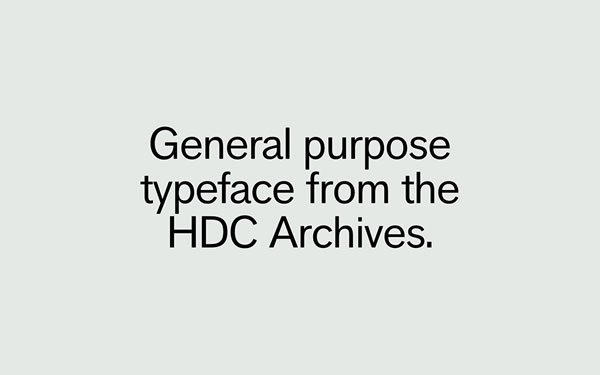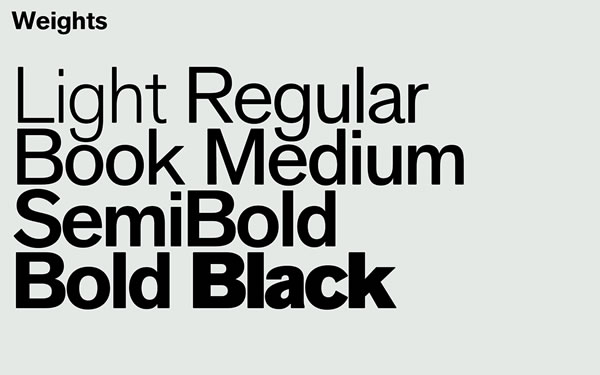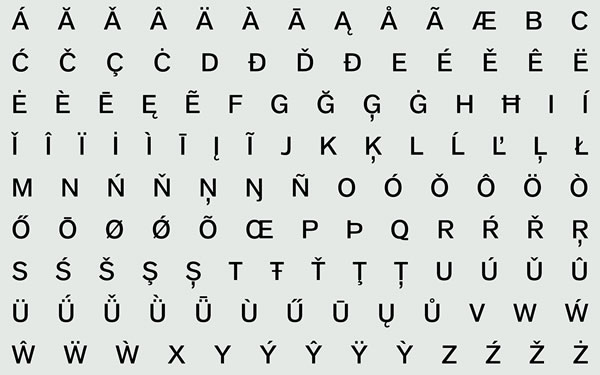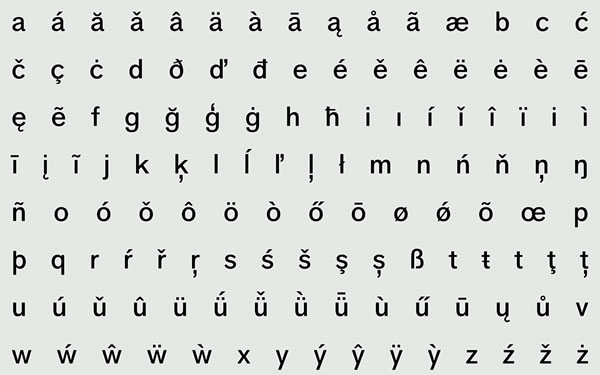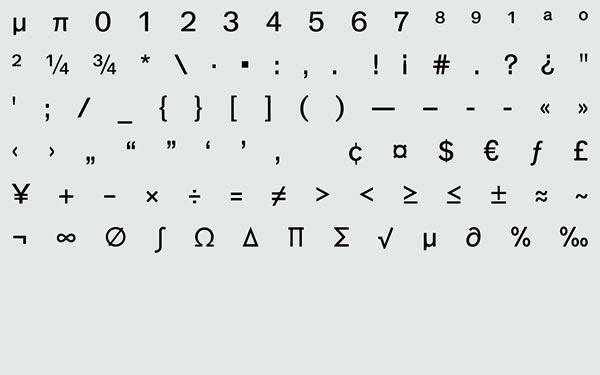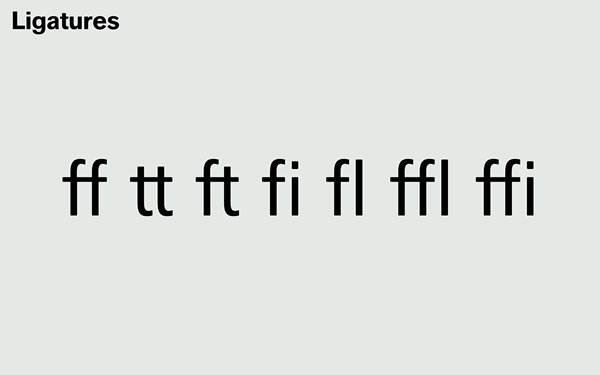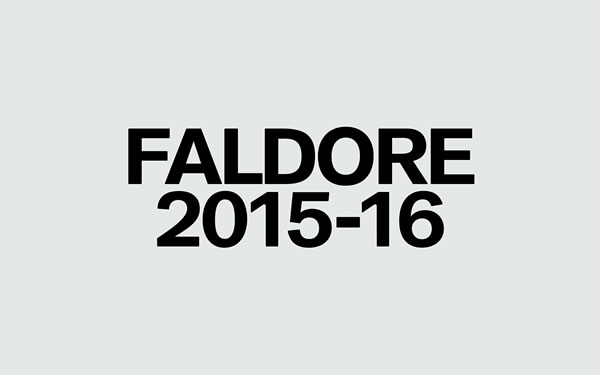
Faldore Font: A Simple yet Effective Sans Serif Typeface for Modern Design
In the world of typography, a well-designed font can make all the difference in communicating a message effectively. Faldore Font is a general-purpose upright sans serif typeface that has gained popularity among designers and crafters for its simplicity, legibility, and versatility. In this article, we’ll dive into the features and benefits of Faldore Font, exploring its design philosophy, characteristics, and uses.
The Design Philosophy of Faldore Font
Faldore Font is built on a monoline structure with a low contrast, which gives it a clean and minimalist look. The font’s design is centered around simplicity, with a focus on clear communication. The creators of Faldore aimed to develop a typeface that would be easy to read, both on screen and in print. To achieve this, they incorporated slightly rounded corners, which not only enhance the font’s geometric rendering on digital displays but also give it a warmer appearance in print.
Key Characteristics of Faldore Font
- Upright sans serif typeface: Faldore Font is a classic sans serif font with an upright posture, making it suitable for a wide range of applications.
- Low contrast monoline structure: The font’s monoline structure ensures a consistent line width, contributing to its clean and simple appearance.
- Slightly rounded corners: The subtle rounding of corners enhances the font’s readability on screen and adds a touch of warmth to its print appearance.
- Simple and legible design: Faldore Font is designed to communicate effectively, with a focus on clarity and simplicity.
Uses of Faldore Font
Faldore Font’s versatility makes it an excellent choice for various design projects, including:
- Digital interfaces: Faldore Font’s clean design and rounded corners make it an ideal choice for UI/UX design, web development, and mobile app design.
- Print materials: The font’s warm appearance and legibility make it suitable for print materials, such as brochures, posters, and business cards.
- Branding and advertising: Faldore Font’s simplicity and effectiveness make it a great choice for branding and advertising projects, where clear communication is crucial.
Benefits of Using Faldore Font
By choosing Faldore Font for your design projects, you can benefit from:
- Improved readability: Faldore Font’s simple design and rounded corners ensure excellent readability, both on screen and in print.
- Versatility: The font’s clean and minimalist design makes it suitable for a wide range of applications and industries.
- Effective communication: Faldore Font’s design philosophy is centered around clear communication, ensuring that your message is conveyed effectively.
Faldore Font is a well-designed sans serif typeface that offers a unique combination of simplicity, legibility, and versatility. Its low contrast monoline structure, slightly rounded corners, and clean design make it an excellent choice for designers and crafters looking for a reliable and effective font for their projects. Whether you’re working on digital interfaces, print materials, or branding and advertising projects, Faldore Font is definitely worth considering.